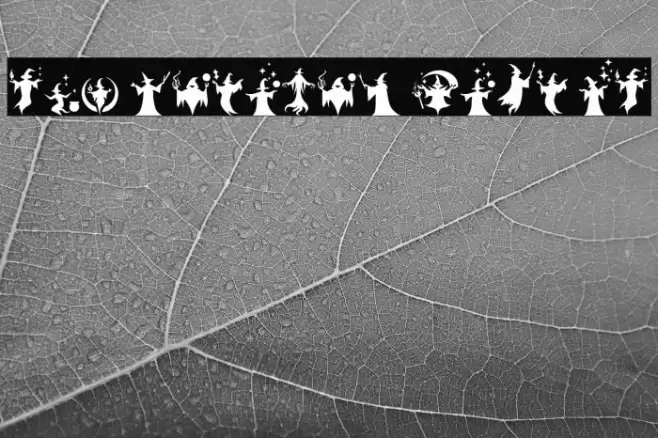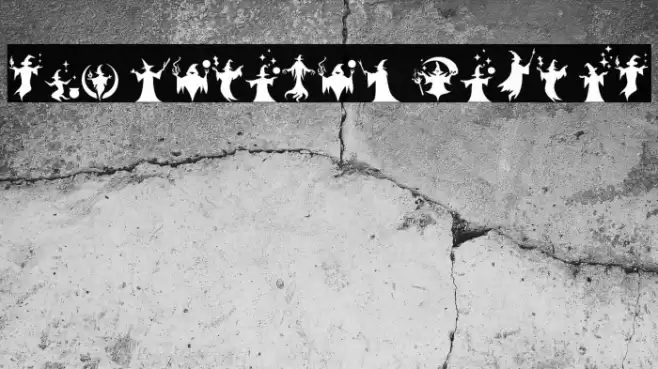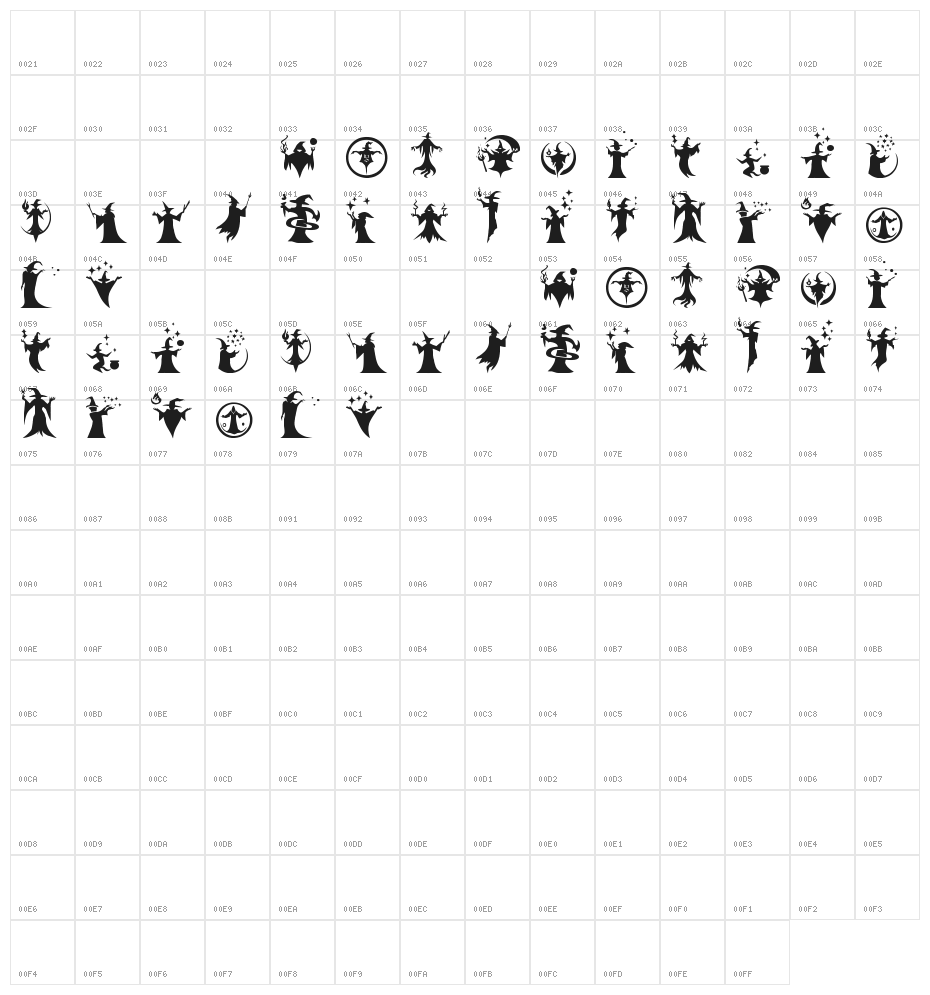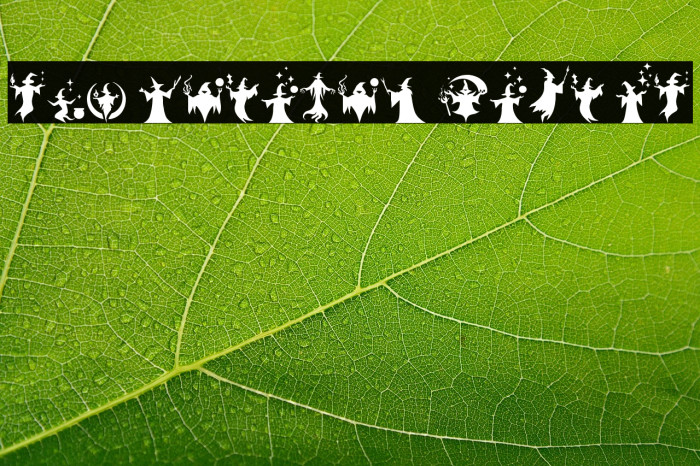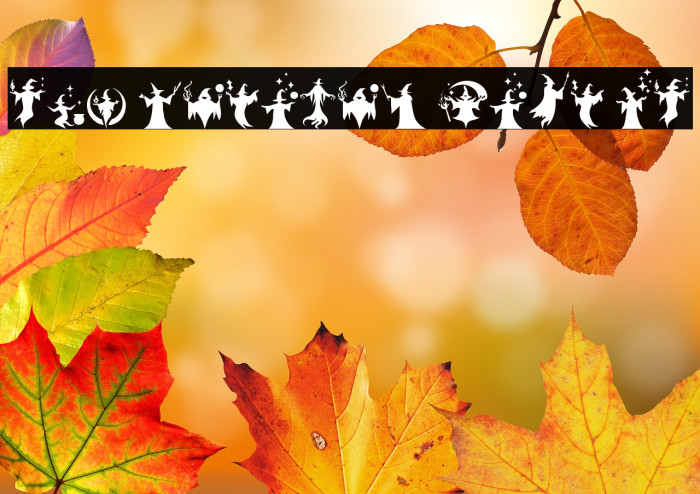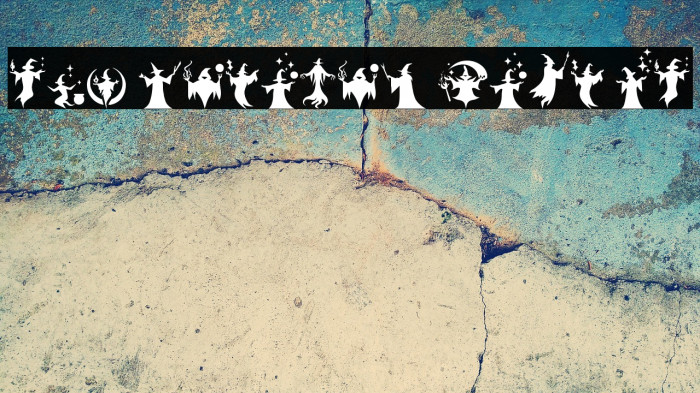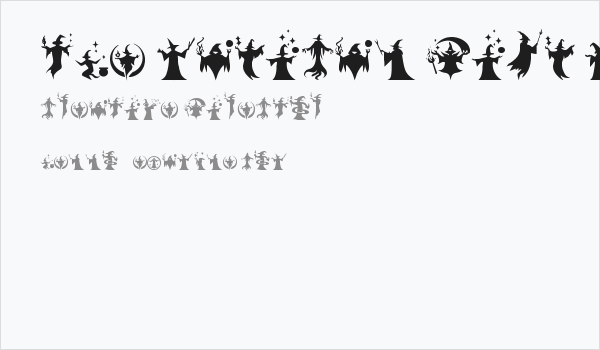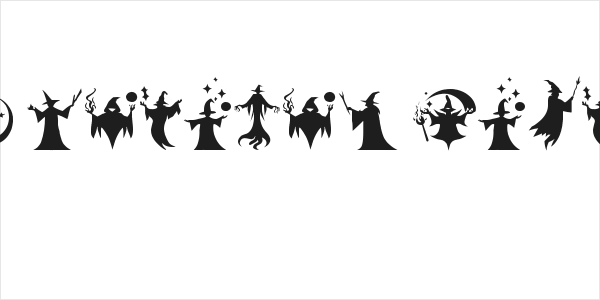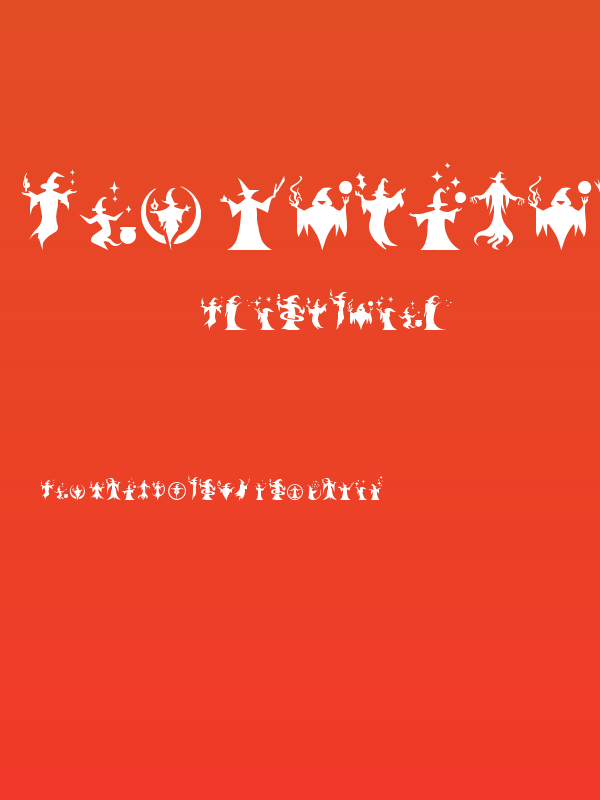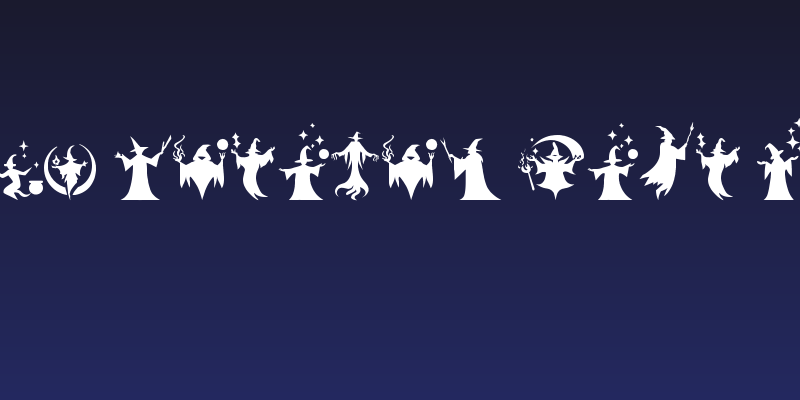
The Magical Ding St Font
The Magical Ding St Description
This is a decorative font featuring whimsical, magical-themed silhouettes. Each character is represented by a unique illustration of witches, wizards, and mystical symbols, creating a playful and enchanting atmosphere. The designs are bold and intricate, with a consistent black fill that enhances their visual impact. The characters are evenly spaced, maintaining a harmonious flow across the text. This font is ideal for projects that require a touch of fantasy and creativity, such as Halloween-themed designs, children's books, or magical event invitations.
A whimsical, magical-themed decorative font with enchanting silhouettes from Uncategorized fonts.
- Font: The Magical Ding St
- Proposed Projects: Perfect for Halloween designs, children's books, magical event invitations, and fantasy-themed branding.
- Contrast: High
- Overall Style: Decorative
- Use Case: Logos, Headlines, Decorative text